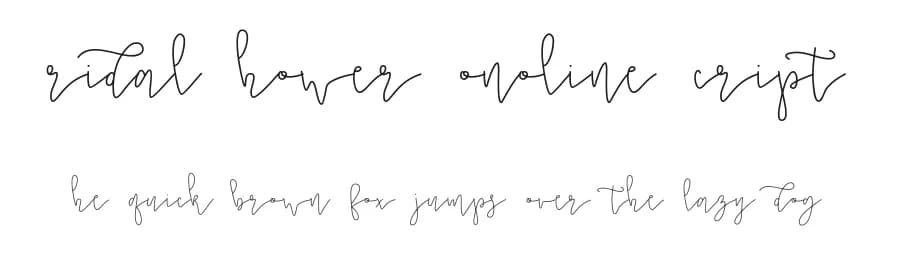
About Bridal Shower Monoline Script Font
Bridal Shower Monoline Script is a new hand-drawn modern calligraphy script based on a commission piece I created for a bridal shower. The script uses ultra-modern calligraphy styling, without requiring ligatures or alternates to solve many of the most common connected-script problems (r, s, x, z).
Additional characters, ligatures, and alternates will be added based on interest in the beta demo.
| Designer | Out of Step Font Company |
Bridal Shower Monoline Script Font is a script font that shines as a display or heading face. Pair it with a clean sans-serif or serif font for body text β the contrast creates a clear hierarchy while the two styles stay balanced and easy to read.